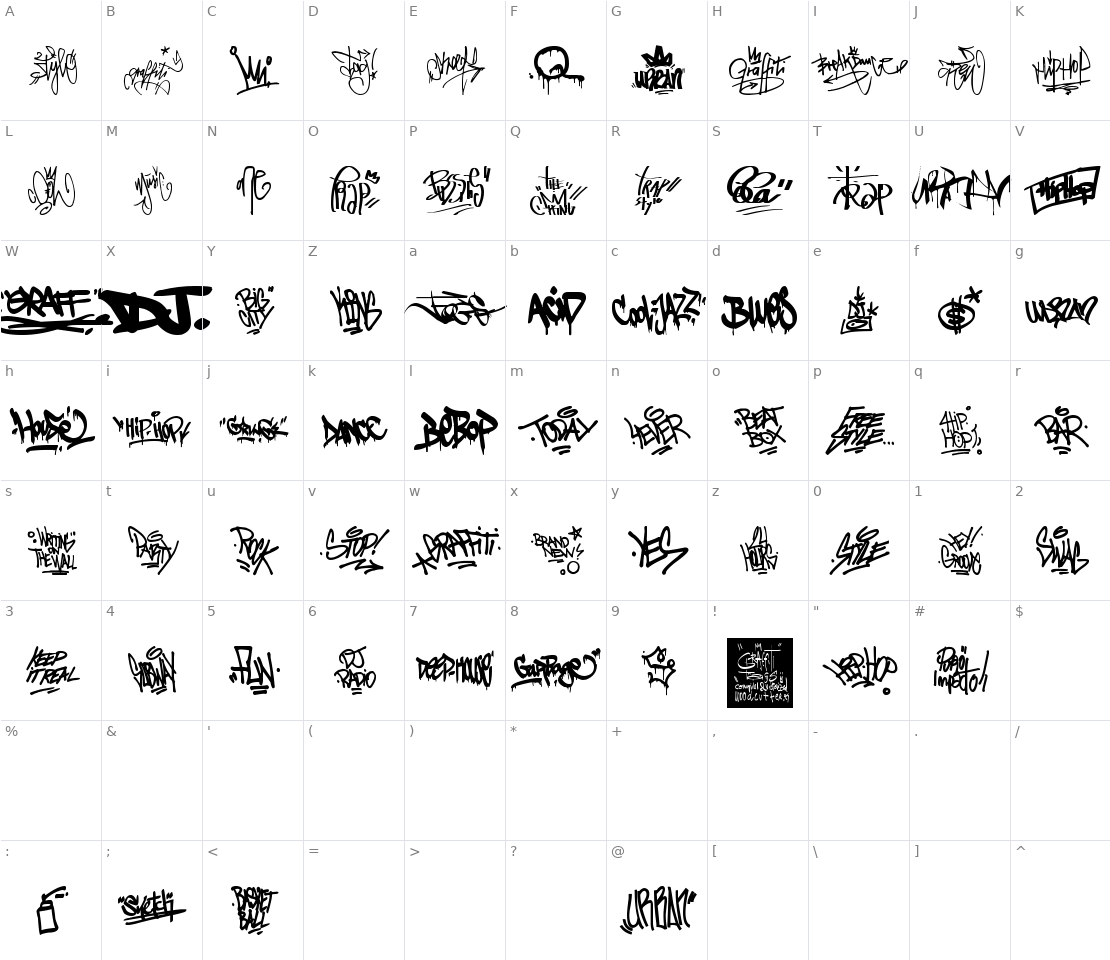
Graffiti Tags
Graffiti Tags from Woodcutter captures the raw, quick-hit energy of street tagging, with bold letterforms that feel sprayed rather than drawn. The rough edges and loose structure give it an authentic urban grit, the kind of lettering you'd find on subway cars and alley walls rather than in a design studio. Built for headlines, posters, album covers, and hip-hop branding where polish would actually work against you.